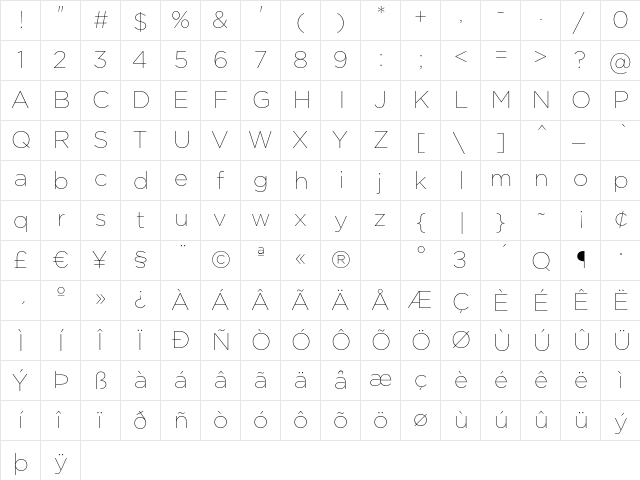
Gotham Regular Font Preview
Gotham Regular
| Foundry | HTF Gotham Copr. The Hoefler Type Foundry, Inc |
Design Context for Gotham Typeface
Gotham offers clean, dependable letterforms without strong stylistic allegiance, making it a practical choice for designers who need flexibility.
Pro Tip: Use Gotham in both headline and body roles to test its range before committing to a single application.